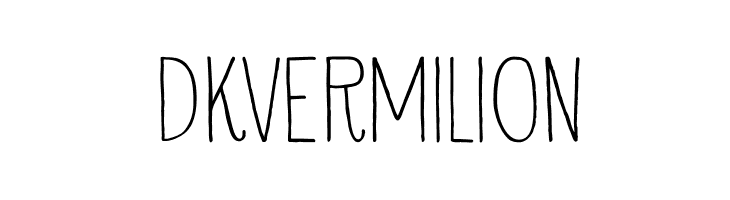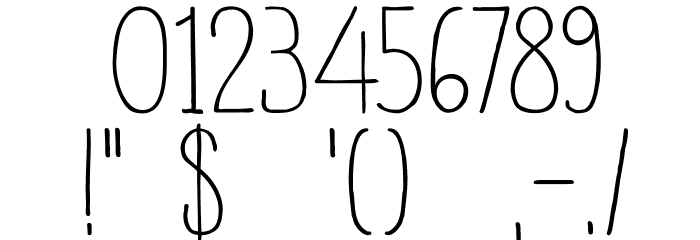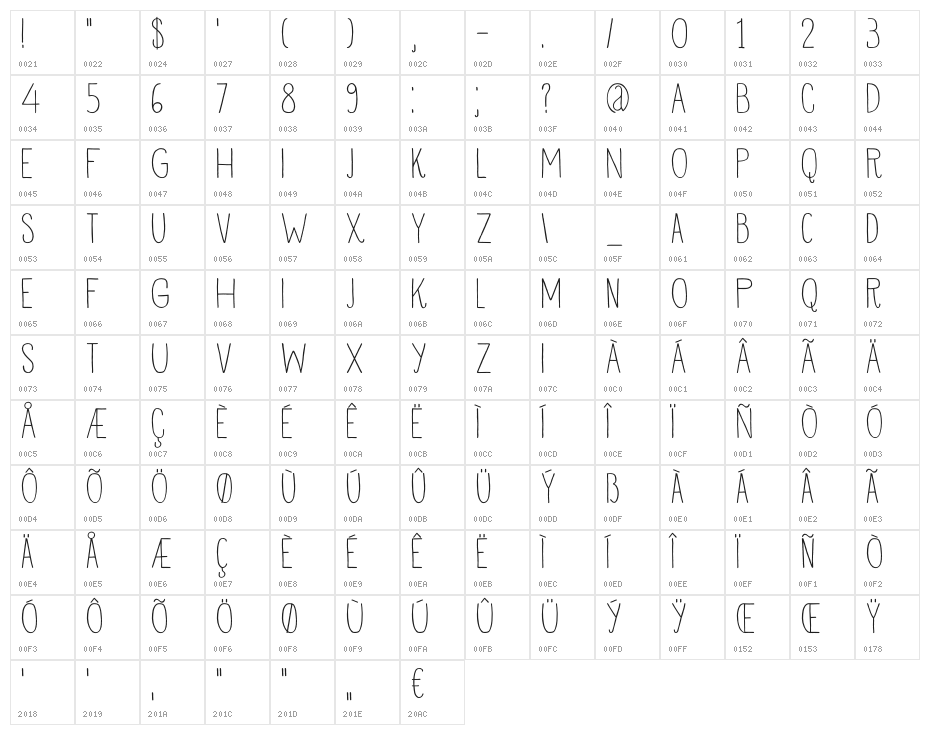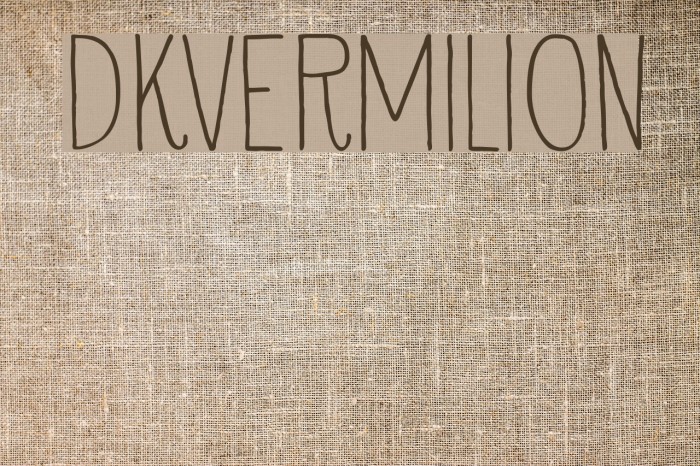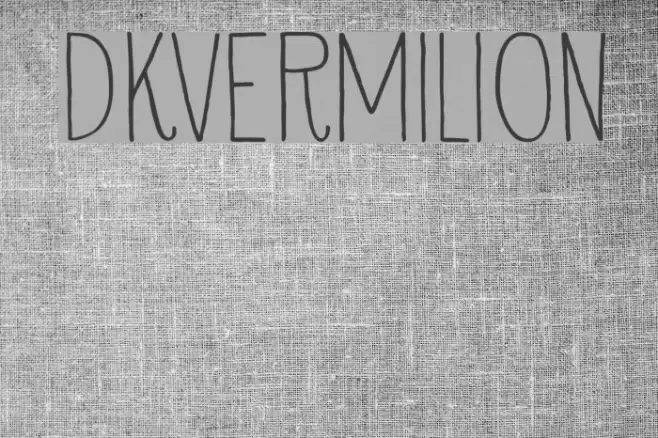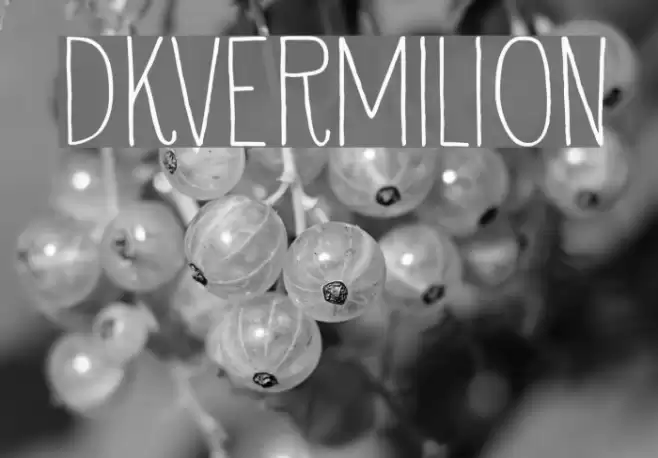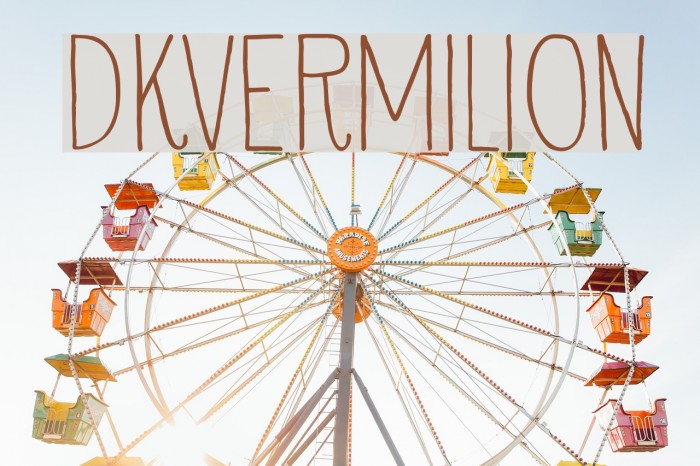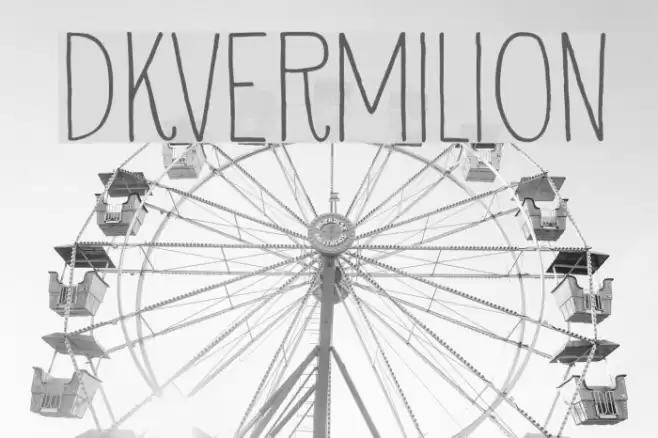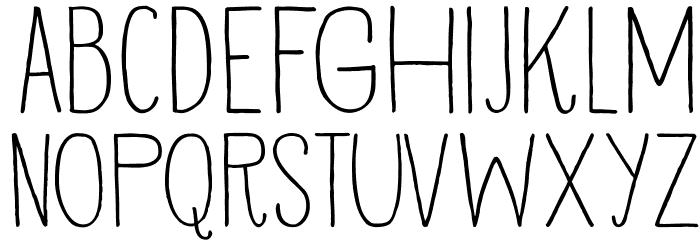
DKVermilion Font
DKVermilion Description
This font features a hand-drawn, whimsical style with tall, narrow characters that convey a playful yet sophisticated look. The strokes are uneven, adding a personal touch and a sense of authenticity. The uppercase and lowercase letters maintain a consistent height, contributing to a cohesive appearance. The numerals and special characters follow the same design principles, ensuring uniformity across all glyphs. This font's unique charm makes it suitable for creative projects that require a touch of individuality and flair.
| Use Case | Logos, Posters, Creative projects |
| Proposed Projects | Ideal for greeting cards, children's book illustrations, playful branding, and artistic posters. |